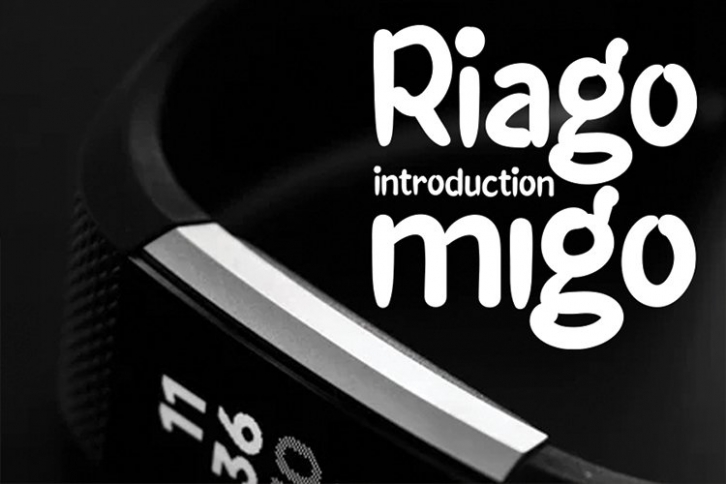
Riago migo is a great font that was designed by andikastudio1. Imagine the amount of combinations you can create using this font! The archive is 5.3 MB and it was released on April 14, 2020. Riago migo looks beautiful on wedding invitations, greeting cards, logos, posters, labels, t-shirt designs, logos, business cards and is perfect for use in ink or watercolor works, fashion, magazines, packaging and food menus, children's books and more!